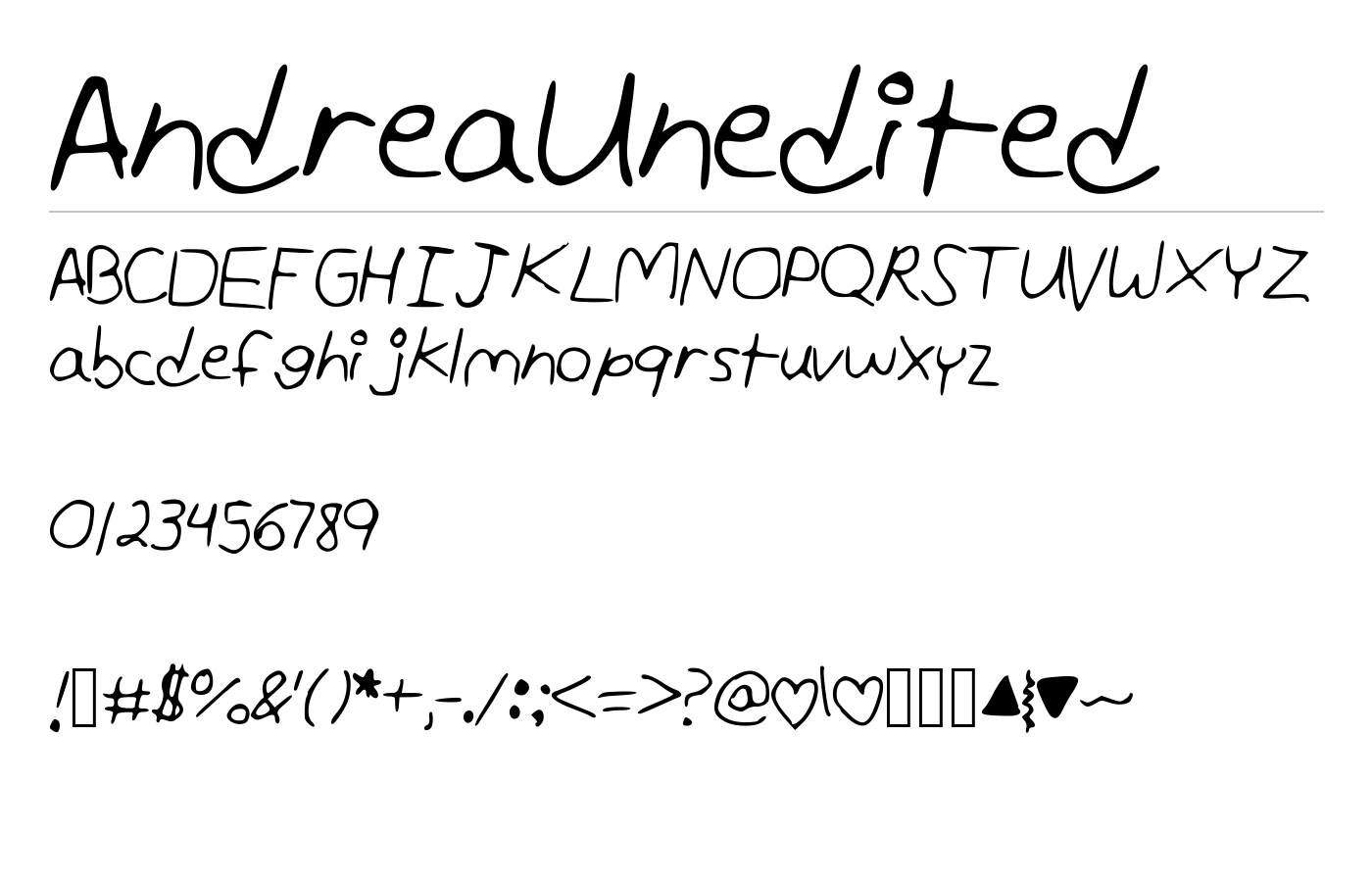
AndreaUnedited is a playful, casual handwritten font with a light weight and airy spacing, featuring quirky, slightly uneven letterforms that give it a personal and approachable feel. Its simple strokes and organic shapes make it perfect for creative projects, informal branding, or friendly designs that aim to connect on a human level. This font works well for invitations, children's books, or any context where a handwritten touch adds charm and warmth.
AndreaUnedited Font
About AndreaUnedited Font